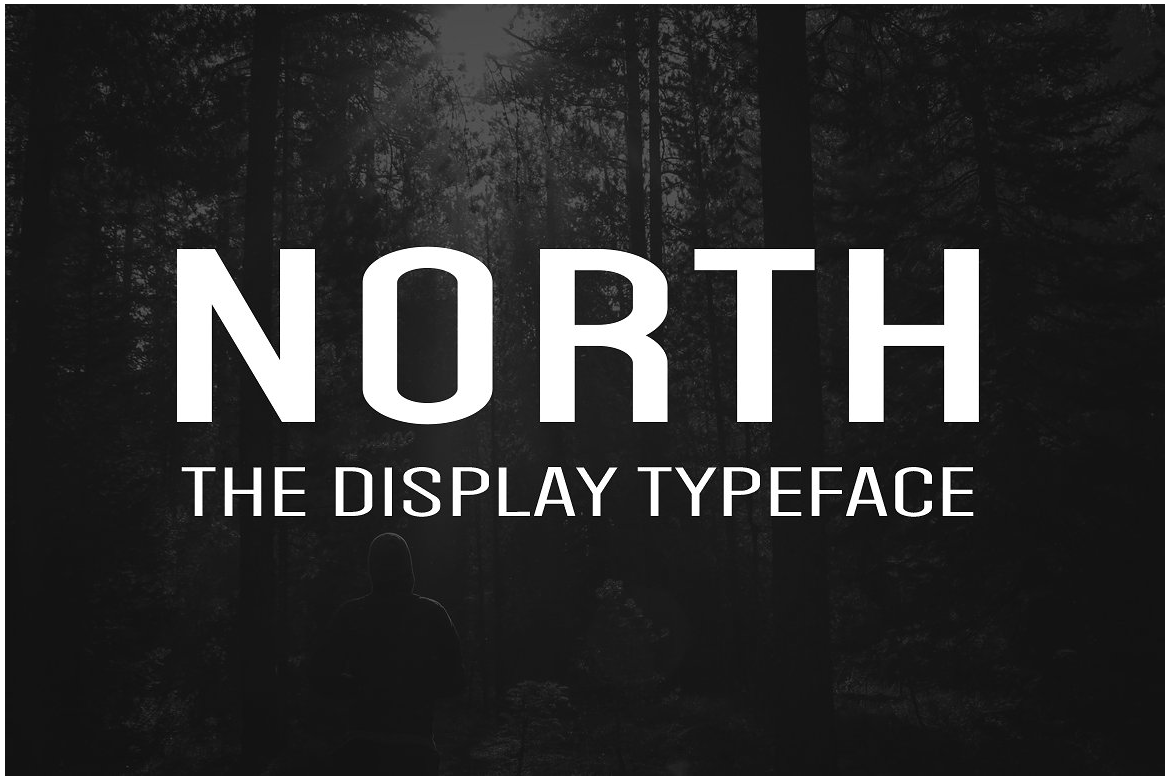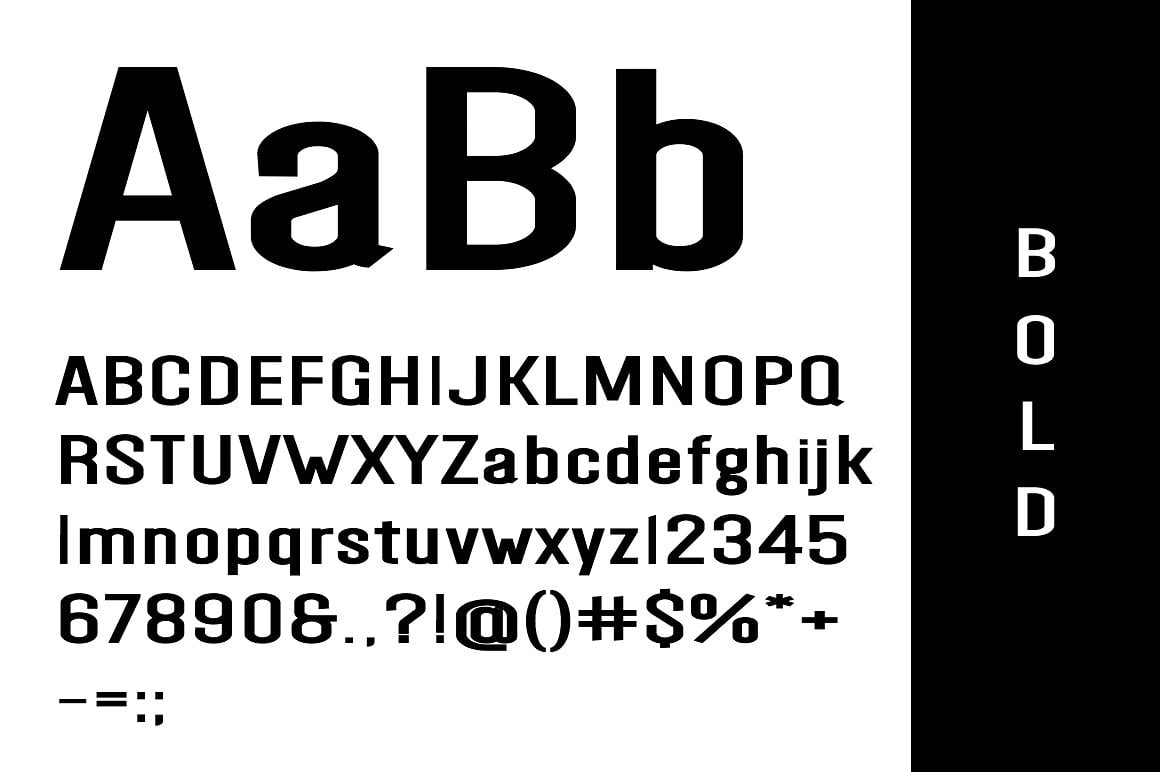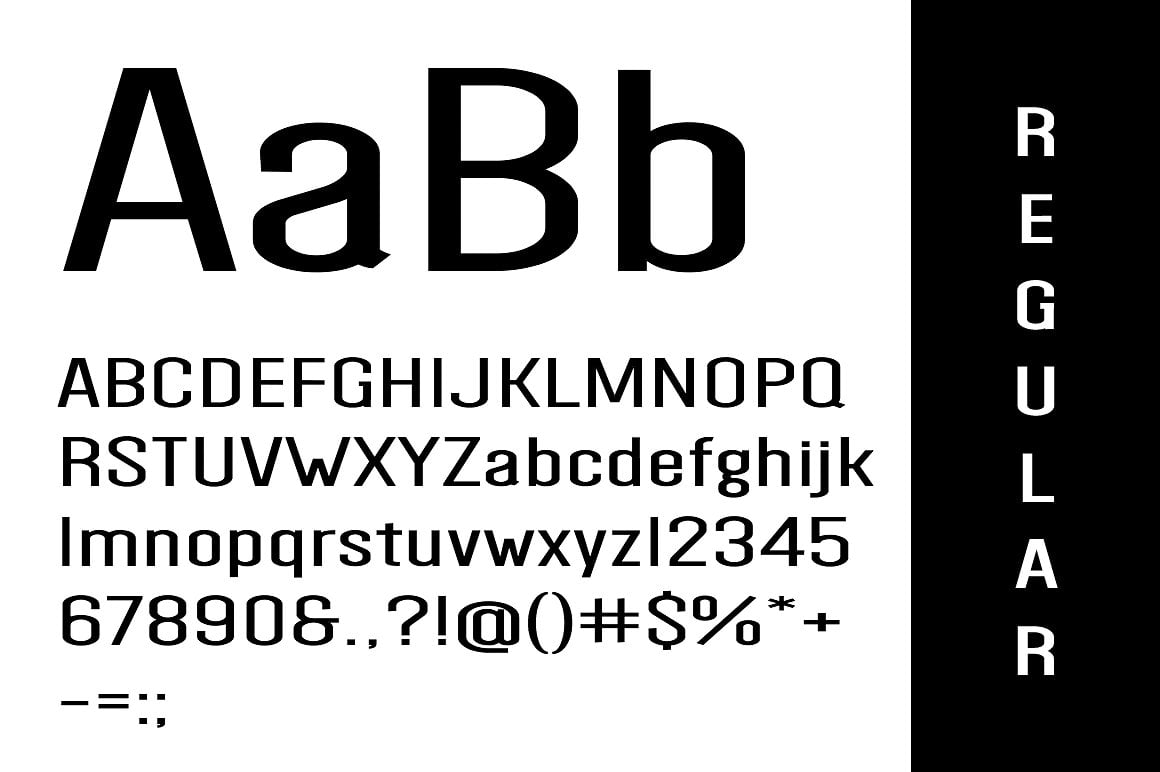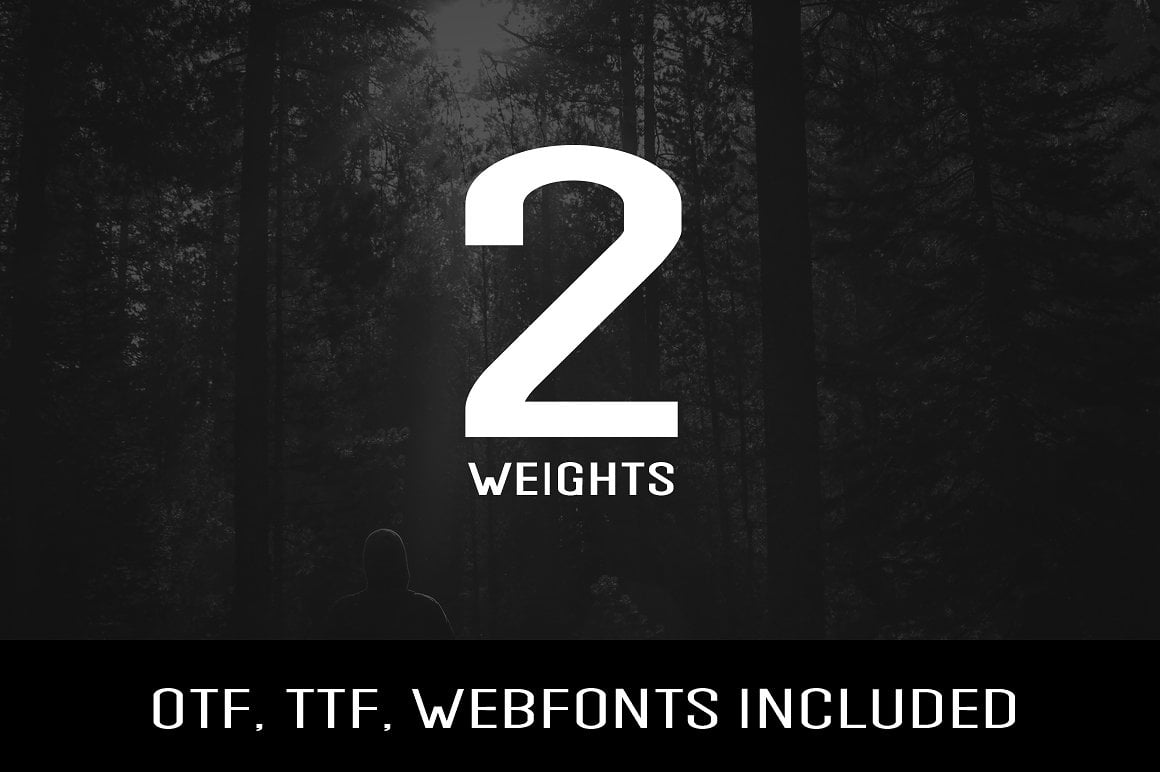
NORTH – Display Typeface + Web Fonts
NORTH is a modern Display typeface inspired by some nameboards in the Nordic streets. NORTH features 2 weights non-italic (Normal / Bold). The pack includes OTF, TTF and Web Fonts (all EOT, SVG, TTF, WOFF included).